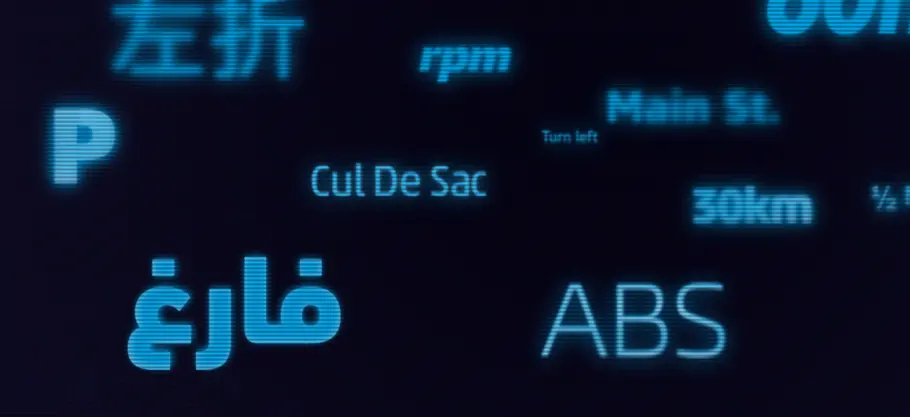
Fonts for Cars
「 Fonts for cars must emit visual appeal and brand consistency, while being exceptionally legible and readable at a glance. 」
Font For Cars
Absorbing information quickly is more than a convenience at 60mph. Fonts for cars must emit visual appeal and brand consistency, while being exceptionally legible and readable at a glance. This collection illustrates a sampling of typefaces that can be read easily to help keep drivers’ eyes where they belong — on the road.
Avenir Next
In designing the Avenir® typeface, Adrian Frutiger drew inspiration from both past and future. Frutiger added a touch of organic humanism to his design, freeing Avenir from the rigid geometric overtones of earlier fonts.
In 2004, Frutiger, together with Linotype’s in-house type designer Akira Kobayashi, reworked the Avenir family to address on-screen display issues. The result was the Avenir Next typeface. The blending of geometric and humanist elements contributes to the Avenir typeface’s high legibility, making it ideal for quick-glance environments such as automotive HMI panels and displays.
Burlingame
A relatively new font, the Burlingame® typeface is a sturdy design with open, clear shapes that offer outstanding legibility, especially in constrained digital settings. This font embodies a humanist, handcrafted quality, which was modified based on what was learned from automotive UI legibility research commissioned by Monotype, making Burlingame ideal for digital instrument panels in any vehicle.
The Burlingame typeface is a melding of traits pulled together in response to the needs of automotive displays: flat terminals, sharp corners, super-elliptical bowls, and generous spacing. Its simple shapes and deep triangular cuts also help ensure clarity and legibility at small sizes, especially on low-resolution screens.
Frutiger
Adrian Frutiger was a world-renowned type designer. His namesake font design is distinctive and ideal for wide variety of uses. Originally intended for airport signage, the Frutiger® typeface is very legible from a large number of distances and angles. A classical typeface, Frutiger combines the legibility of a humanistic sans serif font with the visually appealing geometric lines of a grotesque sans font.
The Frutiger typeface has been adopted by many corporations and governments for its modern, warm look. This font’s openness makes it extremely visible, and its distinctive letterforms avoid blending into one another.
Tipperary
The Tipperary™ typeface is a monoline humanist sans serif font with clear, open letterforms. Its austere characters offer exceptionally quick legibility, perfect for digital UI displays. To create this font, many classic typeface designs were reinterpreted and combined. The result is a font which excels within the technological constraints of modern display screens while retaining the proportions and form that made it a favorite in print.
Tipperary’s letterforms curve abruptly in an almost squarish geometry, making it one of the best fonts for quick-glance environments such as automotive gauges, displays, and interfaces.
Daytone
The Daytona™ font was designed by Monotype’s Jim Wasco with legibility in mind. It features sturdy, squared letters, which are based on humanist shapes and proportions. The Daytona typeface’s letterforms are narrow, which maximizes space and promotes easy reading. Its rounded corners, open counters and simple character shapes make Daytona one of the most legible fonts in the Monotype library.
The Daytona typeface performs extremely well in nearly every on-screen environment, including automotive user interfaces, digital dashboards, and GPS devices.
Akko
In an unlikely meeting of adjectives, the Akko™ and Akko Rounded companion typefaces are routinely described as both “industrial” and “fancy,” thanks to designer Akira Kobayashi’s softening of what started out as an austere industrial concept. The name was derived from the first two letters of its famed creator’s forename and surname.
Akko is a friendly yet very contemporary design, which is highly legible but stylish. The ‘bare bones’ skeleton of Akko’s letterforms reduce visual crowding that occurs in other design genres.
Mayberry
Mayberry was initially designed to emulate the technical behavior of a font family called Tiresias™ for use in set top TV devices and user interfaces. Mayberry is a significant improvement in aesthetics and functionality over Tiresias.
Mayberry includes true italics and a wide range of weights to provide the highest quality and readability on low resolution devices, while also featuring a range of OpenType features that will appeal to creative professionals. Mayberry is a slightly condensed humanist sans serif which allows for more readable text in a narrower column. Open counters and upright stress help keep the design of Mayberry readable at low resolutions.
Trade Gothic
The Trade Gothic font family stands out as a staple of American graphic design work, in constant use since its release by Jackson Burke in 1948. Having also enjoyed use internationally, the designs were, for a time, even seen as a competitor to the Helvetica® family.
A 2008 version, named Trade Gothic Next, refined and expanded the classic collection, ushering it into a new era of popularity. This dissonance adds a bit of earthy naturalism to the appeal of the Trade Gothic designs and is one of the reasons many designers return to it.
Trade Gothic Next is the most legible of the Grotesque Sans genre. The design has an approachable feel with open forms and spacing that perform better for glance-based reading in interfaces.
Slate
The Slate typeface family melds superb functionality and aesthetic elegance into a remarkable communications tool. Few typefaces possess the beauty and power of this design.
Slate is the work of Rod McDonald, an award-winning typeface designer and lettering artist. At one point in his forty-year career, McDonald participated in a typeface legibility and readability research project conducted by the Canadian National Institute for the Blind (CNIB). There, McDonald learned which design traits were best suited to maximizing character legibility and text readability.
Slate is a stylized Humanist typeface offering a warm visual experience. Slate offers the user comfortable reading even in challenging technical environments.
Unitext
A clear and compact design, Hendrik Weber’s Unitext is an adaptable and efficient sans serif that lives somewhere between grotesque and humanist styles.
Unitext draws on extensive research into what design agencies need in a branding typeface, as well as designer Hendrik Weber’s own experience creating custom fonts for companies. Understanding the popularity of sans serif typefaces used for branding – but also their shortcomings – Weber set out to create something that could be adaptable across different environments, but without foregoing friendliness. Readability was also an essential consideration.
Unitext is a new hybrid of type styles offering a contemporary, forward-looking appearance rooted in readability and futuristic elegance.
Perfect legibility. Unmatched design.
Steve Matteson, Creative Type Director for Monotype, curated this collection to illustrate a sampling of typefaces that can be read easily to help keep drivers’ eyes where they belong—on the road. By selecting the right typeface for your dashboard or HMI, you’ll help ensure your automotive display is highly legible and has a peerless design your audience will love.